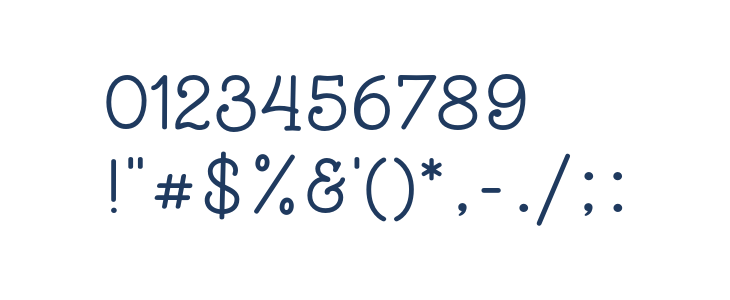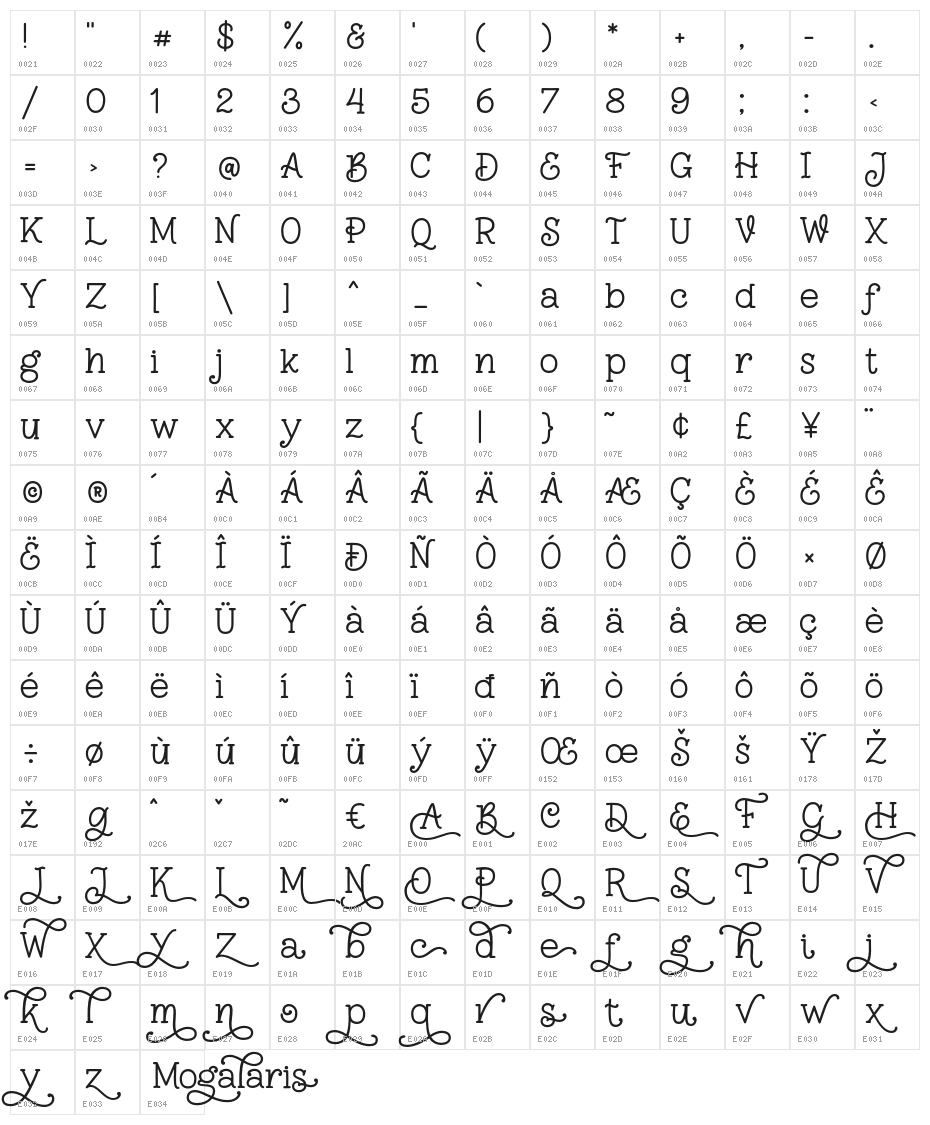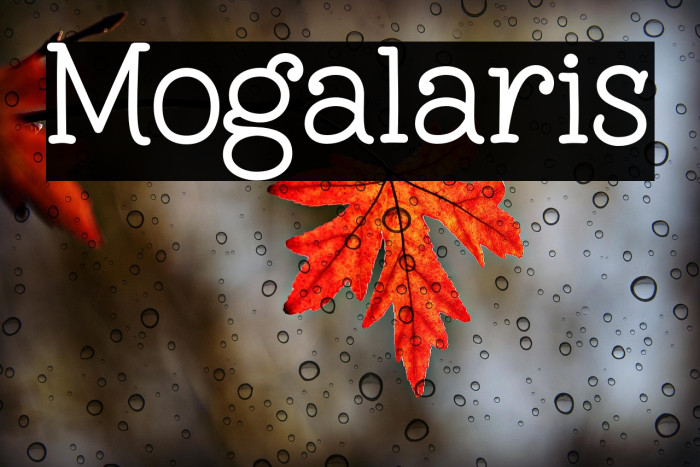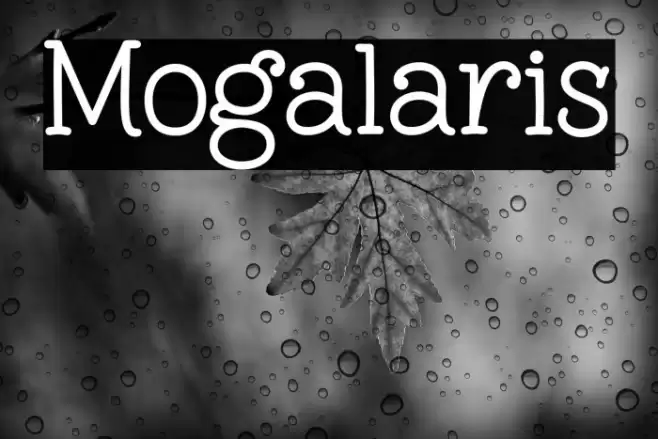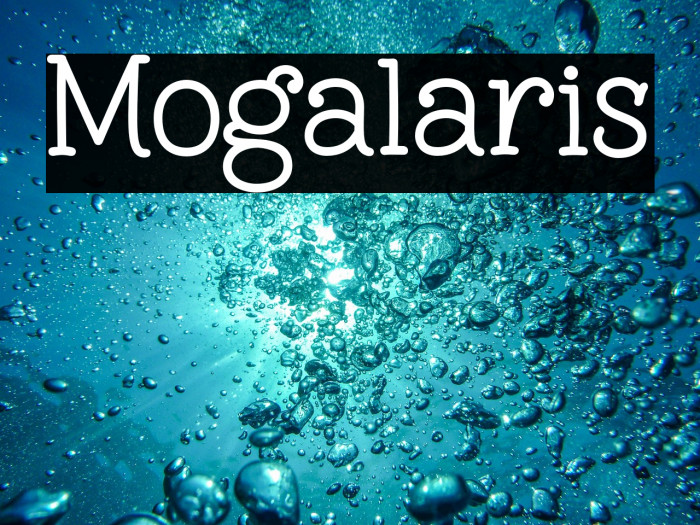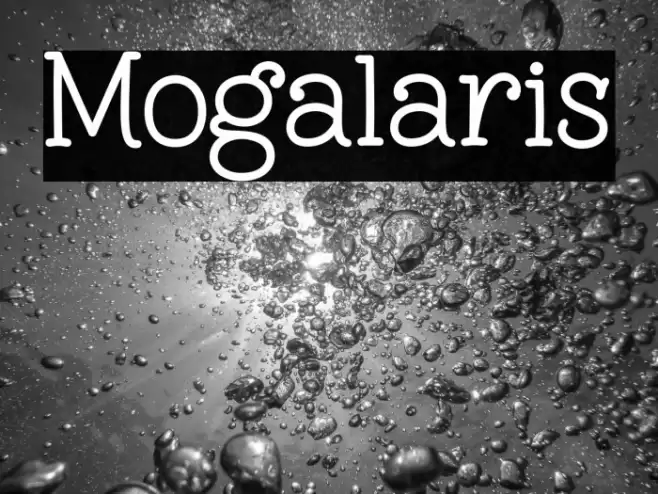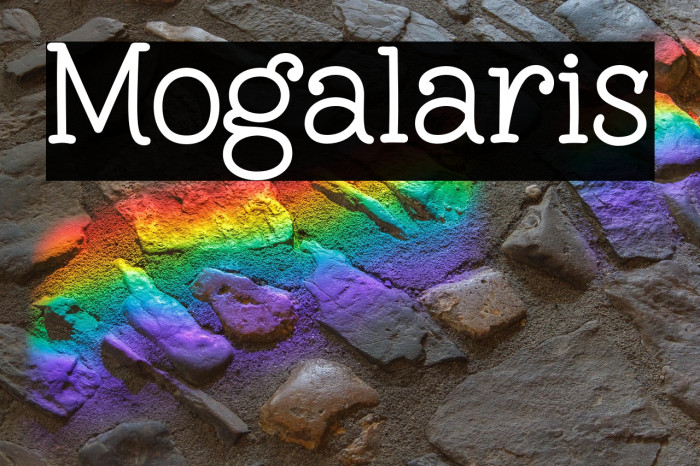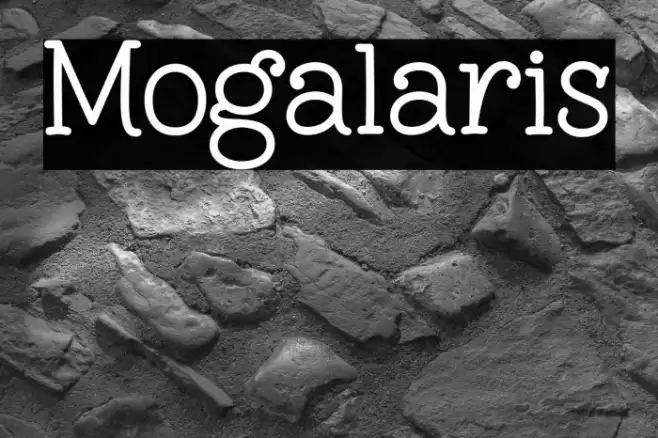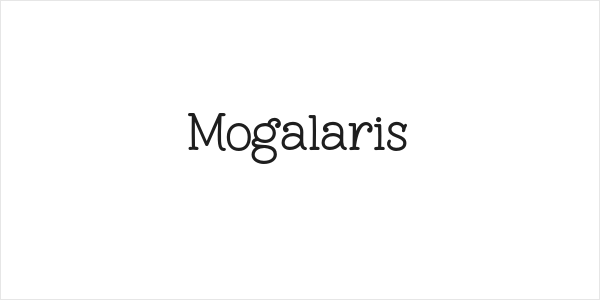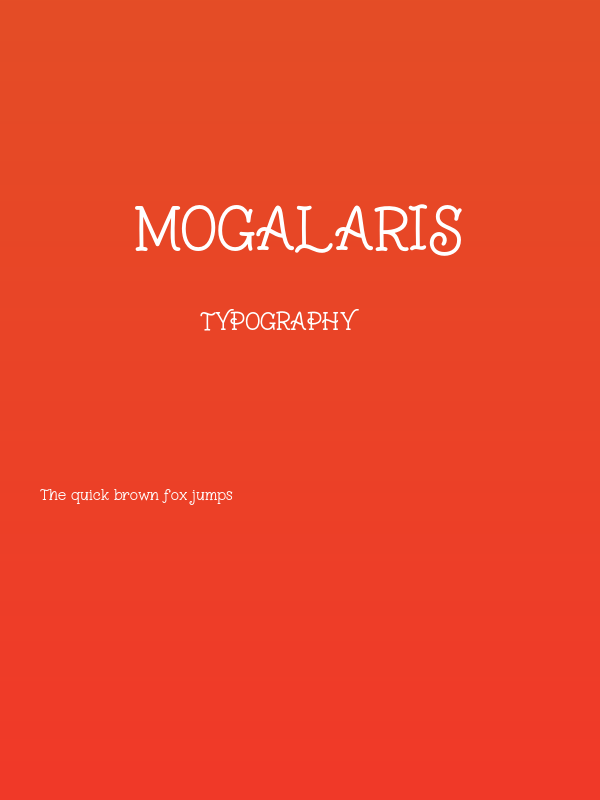
Mogalaris Font
Mogalaris Description
This playful and whimsical font features a unique blend of rounded and curly elements, giving it a lively and friendly appearance. The uppercase letters are bold and slightly exaggerated, with distinctive loops and curves that add character. The lowercase letters maintain a consistent style, with smooth transitions and rounded edges. The numerals are clear and easy to read, while the special characters complement the overall design with their quirky shapes. This font's style is both approachable and fun, making it suitable for a variety of creative projects.